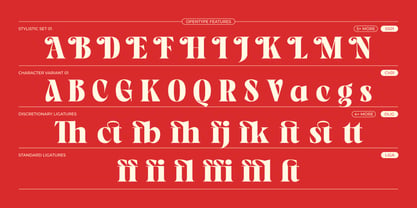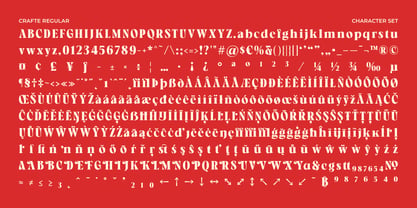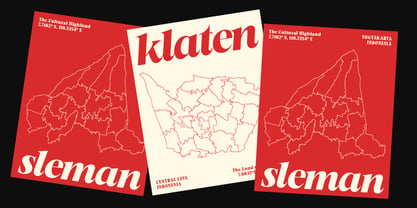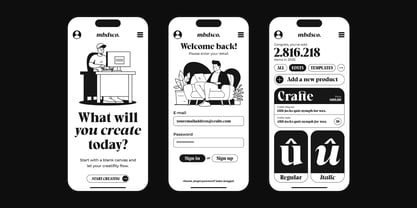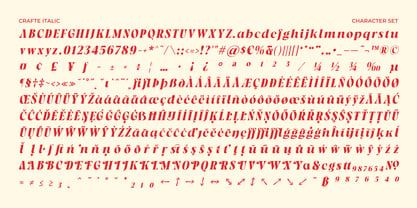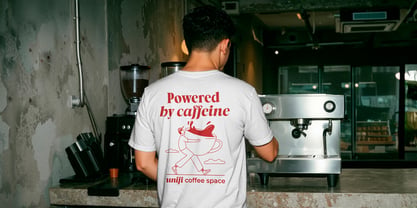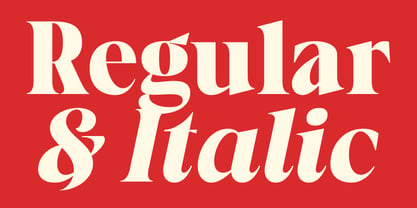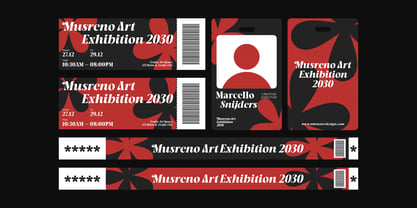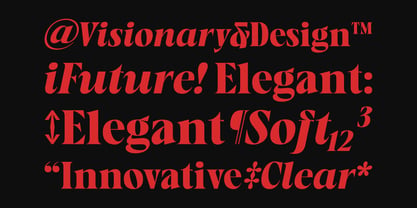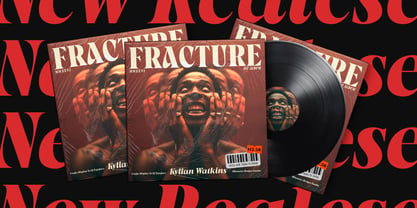
Crafte
by Mbonster
The Crafte Font Family was designed by Rizka Rony Setiawan and published by Mbonster. Crafte contains 2 styles and family package options. More about this family
Crafte is a modern serif typeface with an expressive editorial character and a refined contemporary feel. Designed for creatives who want their typography to make a statement, it features high-contrast strokes, carefully crafted curves, and sharp serif details that bring both sophistication and personality to every design.
Perfect for branding, magazines, posters, packaging, cover designs, café identities, and lifestyle campaigns, Crafte performs beautifully at large sizes and in tightly cropped layouts. It pairs seamlessly with minimalist sans-serifs or stands confidently on its own, delivering a clean, distinctive, and modern typographic presence.
Available in Regular and Italic styles, Crafte offers the flexibility to create elegant typographic hierarchy, add emphasis, and build refined visual identities across a wide range of creative projects.